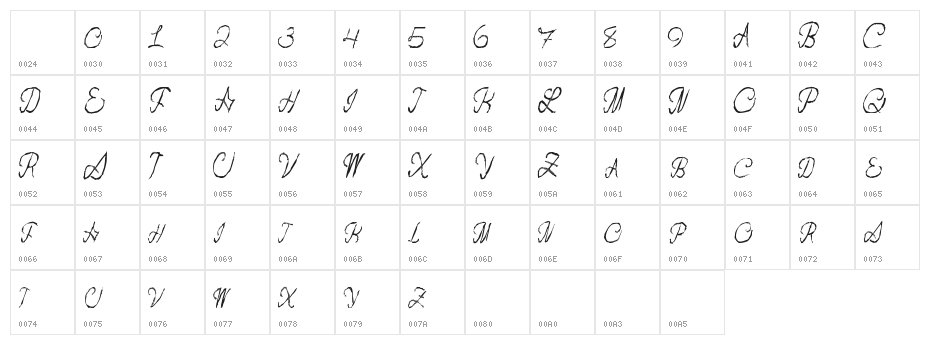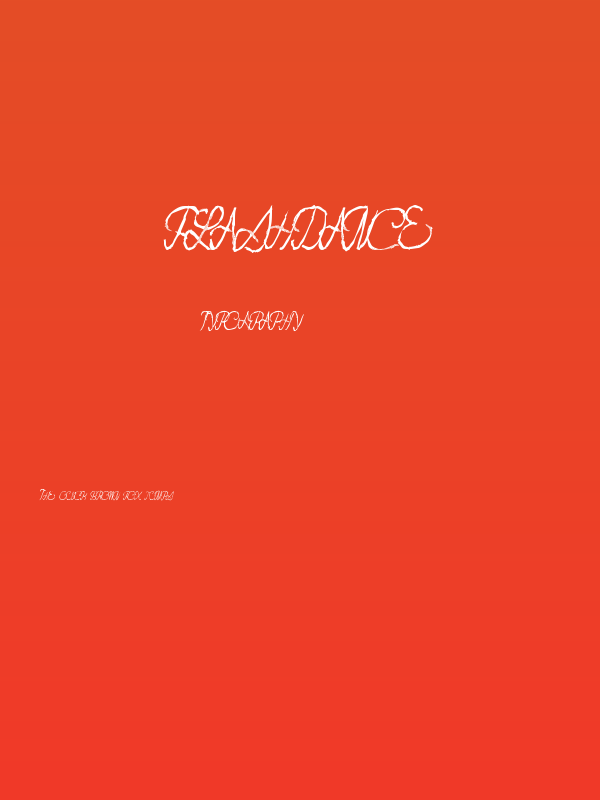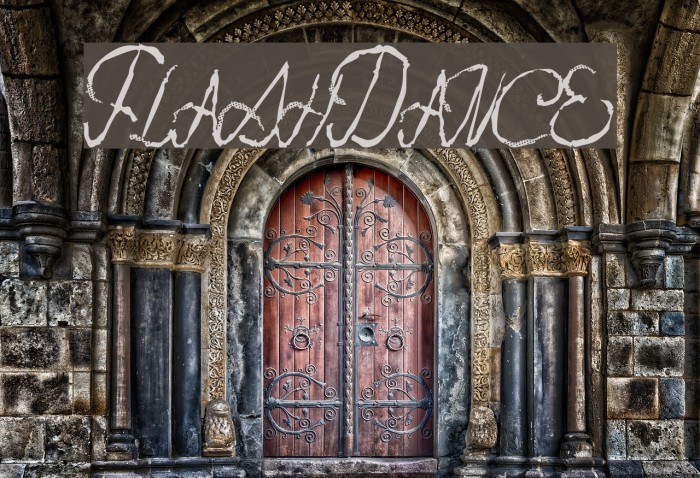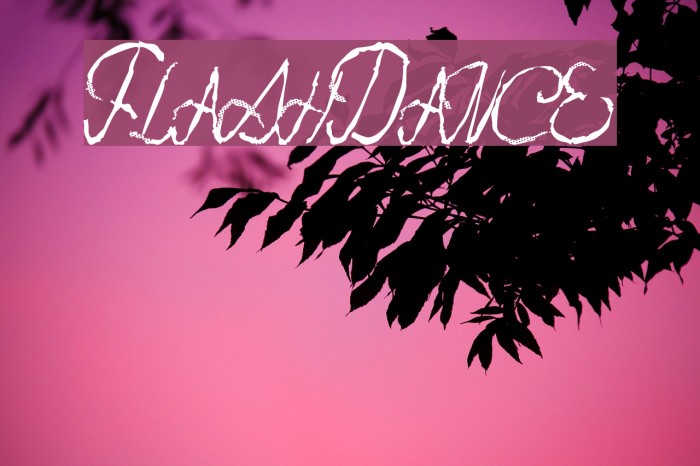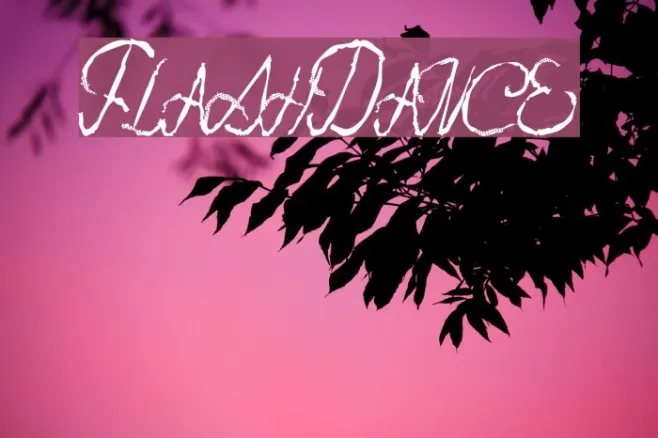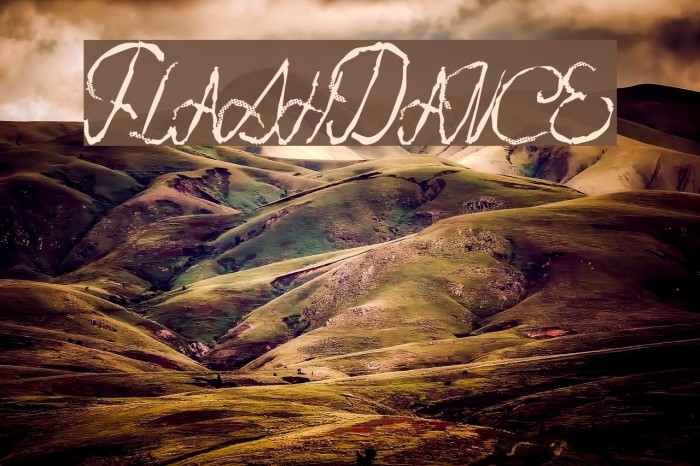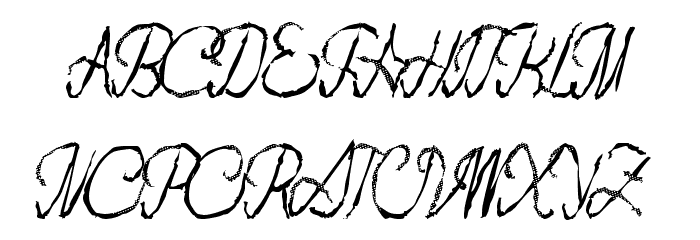
FlashDance Font
FlashDance Description
This font exudes a dynamic and energetic vibe, characterized by its bold, brush-like strokes that mimic the fluidity of handwriting. The letters are interconnected, creating a sense of movement and rhythm, reminiscent of a dance. The uppercase and lowercase letters maintain a consistent style, with exaggerated curves and loops that add a playful touch. The numbers follow the same aesthetic, ensuring uniformity across all characters. This font's unique style makes it stand out, perfect for projects that require a personal and artistic flair.
| Proposed Projects | Ideal for dance studio logos, event posters, artistic branding, and creative invitations. |